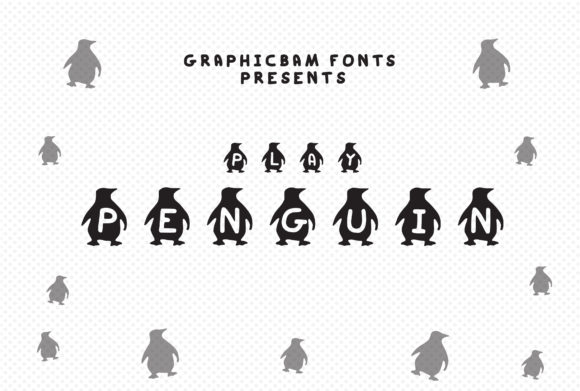
Dive into the icy realm of typography with Play Penguin, the decorative font that captures the essence of the Arctic in every character. Inspired by the adorable tuxedoed creatures, Play Penguin brings a touch of whimsy and charm to your designs.
Feel the crisp, icy breeze as you explore the unique letterforms of Play Penguin. Each character is meticulously crafted, featuring charming penguin silhouettes that peek through the letters. The result is a font that is both playful and elegant, perfect for adding a touch of winter wonderland to your creative projects.
With Play Penguin, you can effortlessly create stunning headlines that demand attention. The bold, eye-catching characters will make your words leap off the page, ensuring that your message is seen and remembered. Whether you're designing posters, social media graphics, or website headers, Play Penguin is the perfect choice for making a lasting impression.
But Play Penguin isn't just about aesthetics. This font is also remarkably versatile, lending itself to a wide range of design applications. Create eye-catching logos that convey a sense of fun and adventure. Transform ordinary invitations into works of art with Play Penguin's playful charm. Add a touch of whimsy to your packaging designs, making your products stand out on the shelves. The possibilities are endless with Play Penguin.
Unleash your creativity and let Play Penguin take your designs to new heights. This font is perfect for designers of all levels, from seasoned professionals to creative beginners. With its user-friendly nature, Play Penguin is easy to integrate into any design workflow.